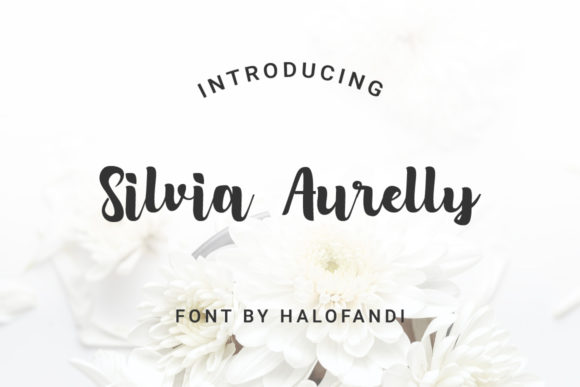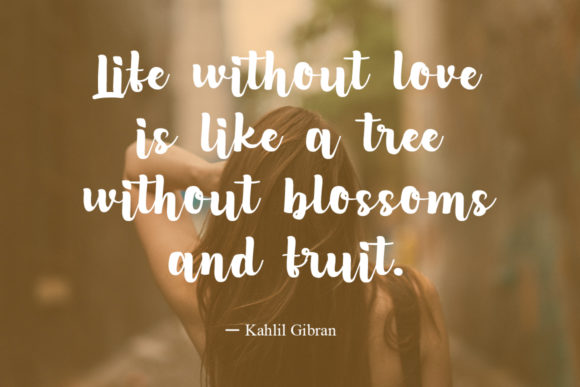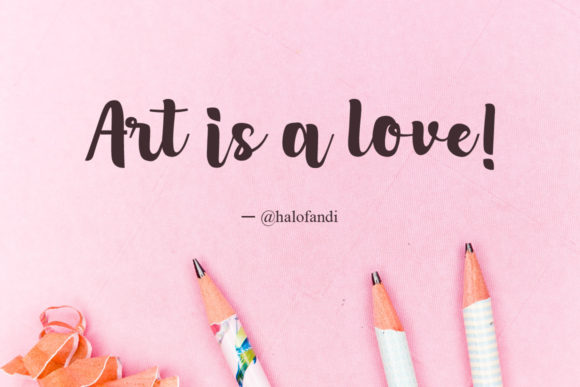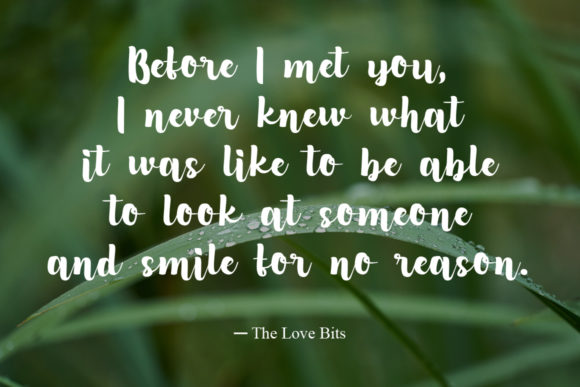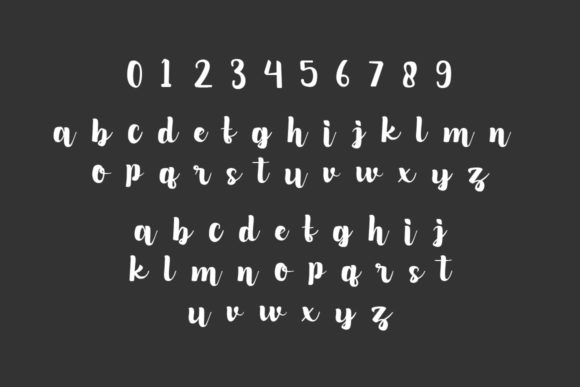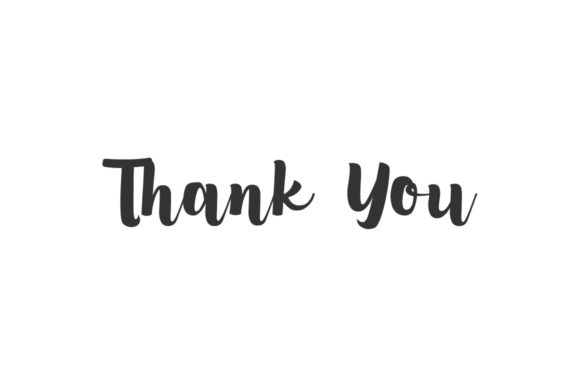
Silvia Aurelly Font
About Silvia Aurelly Font
Silvia Aurelly results out of a stunning pairing of a brush pen and pencil that makes it look incredibly endearing and authentic. Use this gorgeous and unique handwritten font to bring any DIY project to life!